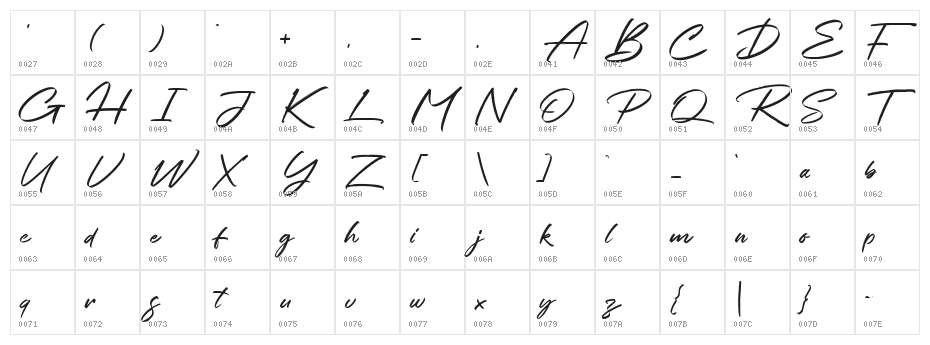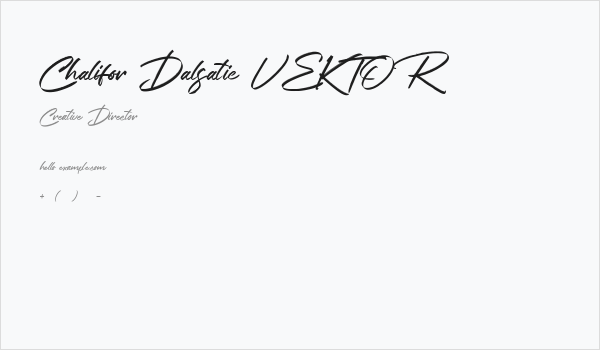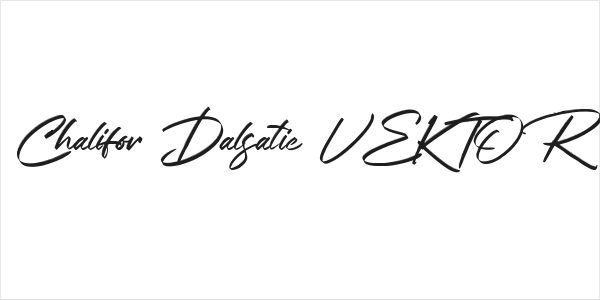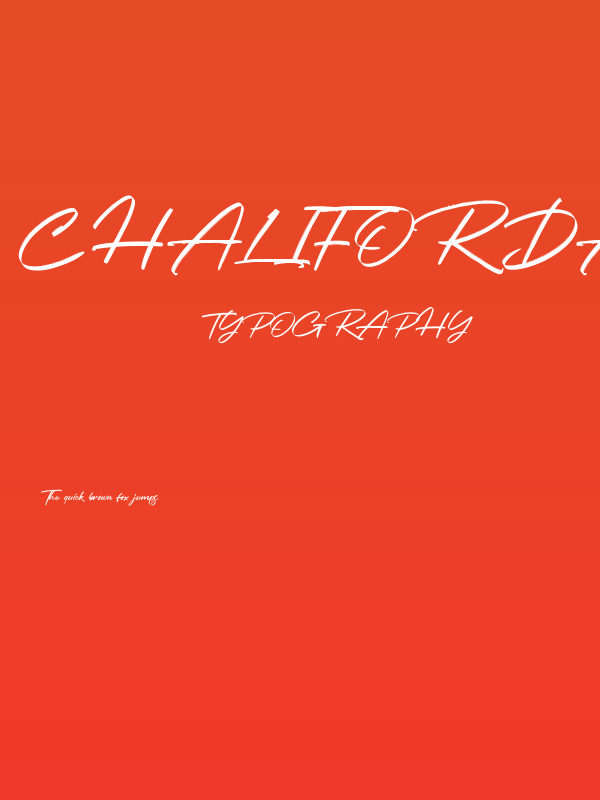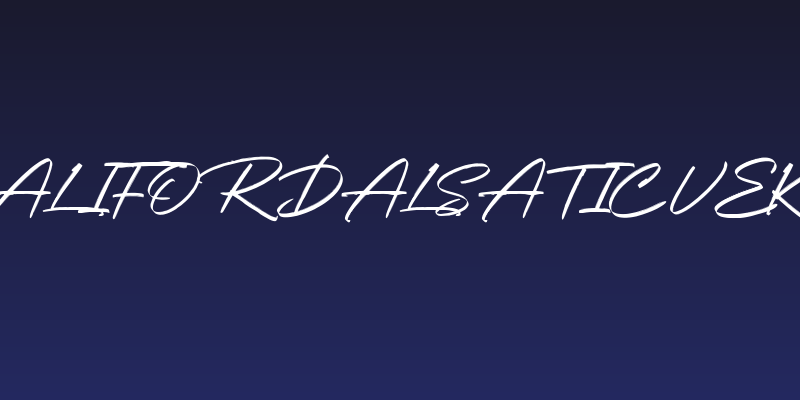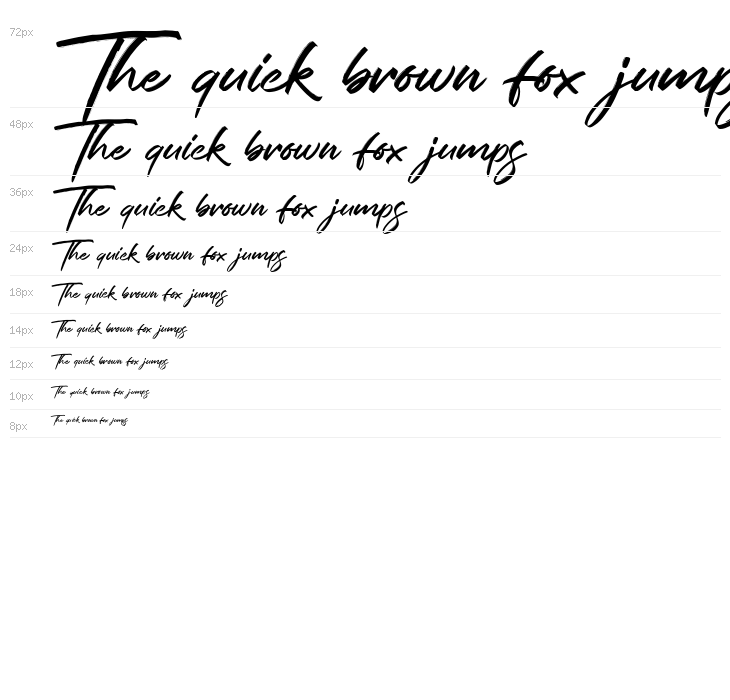
Chalifor Dalsatic VEKTOR Font
Chalifor Dalsatic VEKTOR Description
This font features a dynamic and fluid script style, characterized by its elegant and flowing letterforms. The uppercase letters exhibit a graceful, cursive design with a slight slant, creating a sense of motion and sophistication. The lowercase letters maintain this fluidity, with some characters featuring distinctive loops and swashes that enhance its decorative appeal. The numerals and special characters are consistent with the overall script style, offering a cohesive look. This font's artistic flair makes it suitable for creative and expressive design projects.
Use CaseLogos, Invitations, Artistic projects
Proposed ProjectsIdeal for wedding invitations, branding, greeting cards, and artistic posters.